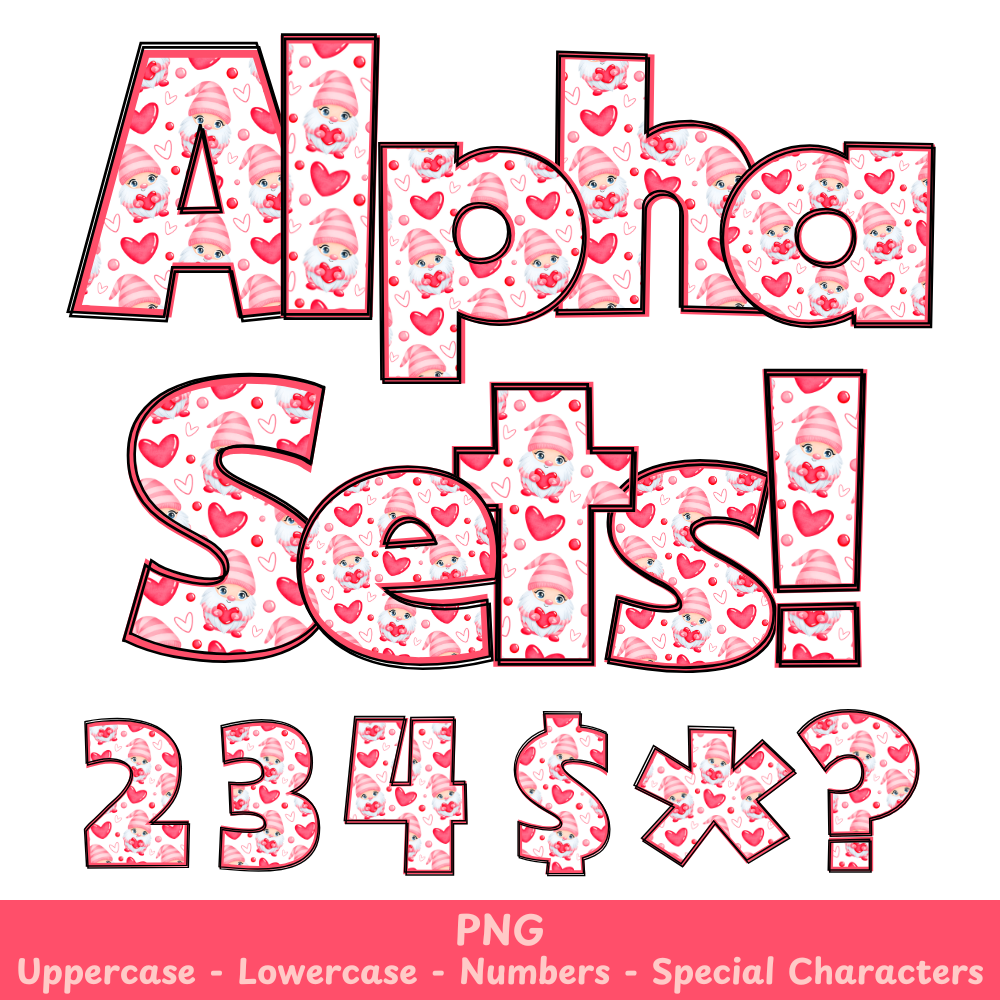
Valentine Gnome PNG Font
Valentine Gnome Alpha Set PNG Font Pack
Enhance your crafts with the charming Valentine Gnome PNG Font. Perfect for sublimation projects, this font boasts adorable gnome characters to add a touch of whimsy to any design. Bring your projects to life with this versatile and high-quality font.